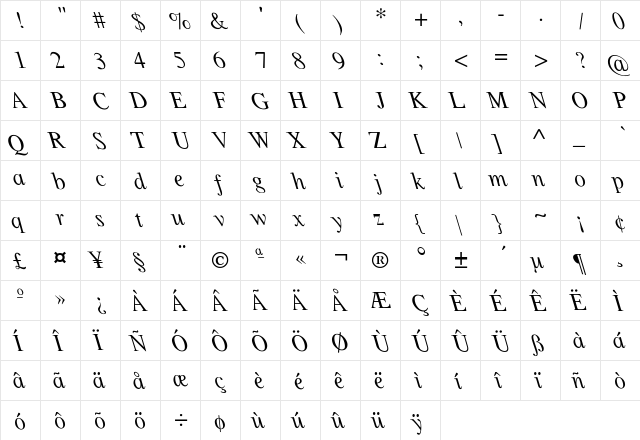
Filte Regular
Design Context for Filte Typeface
Filte is a composed and adaptable typeface that performs quietly and consistently across a wide range of design contexts.